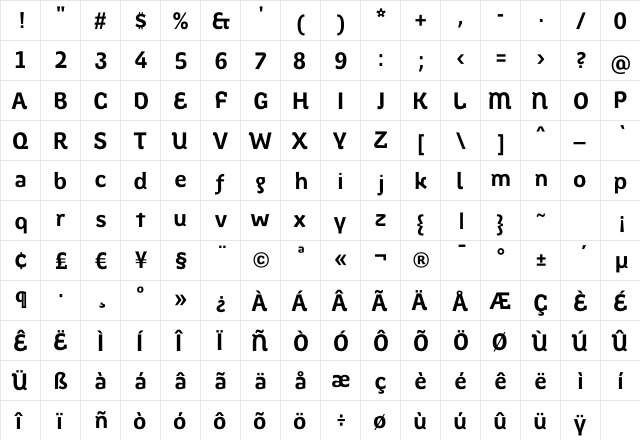
Spotka AlternateBold Regular
Design Context for Spotka AlternateBold Typeface
Spotka AlternateBold takes a measured approach to typography — its balanced proportions and neutral character make it a reliable workhorse for both digital and print work. The heavy weight commands attention and anchors typographic hierarchies.